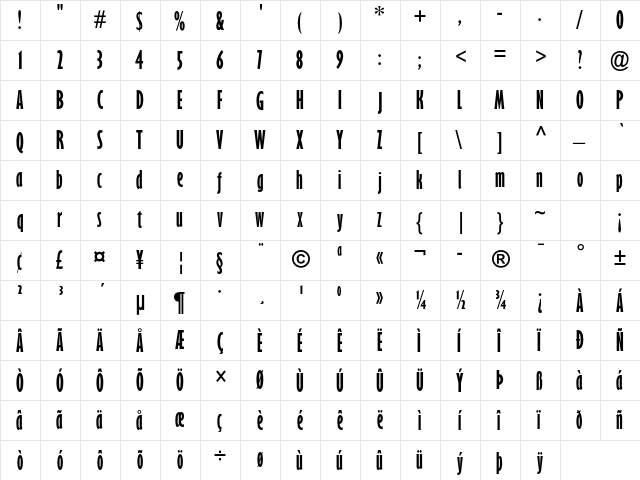
Gill Sans MT Std BoldExtCond
| Designer | Eric Gill |
Design Context for Gill Sans MT Std Typeface
Gill Sans MT Std is a composed and adaptable typeface that performs quietly and consistently across a wide range of design contexts. The heavy weight commands attention and anchors typographic hierarchies. The condensed width makes it efficient for tight spaces without sacrificing legibility.